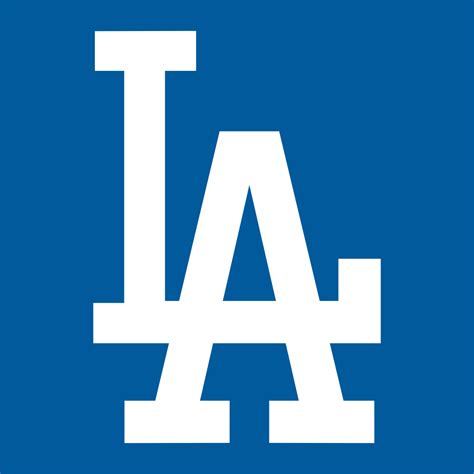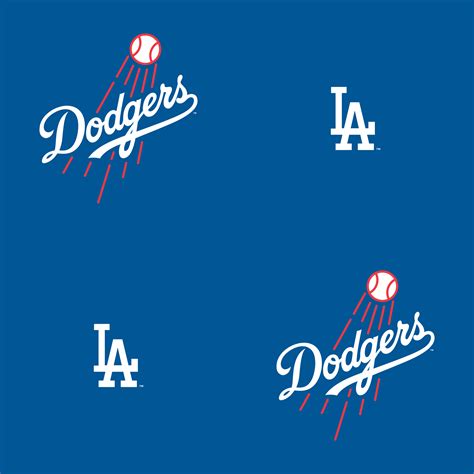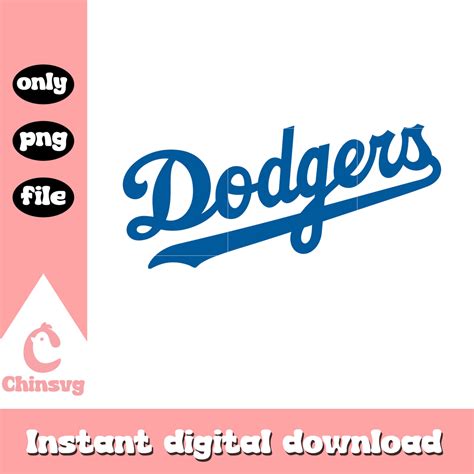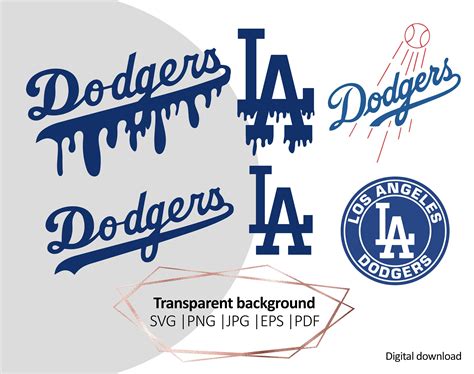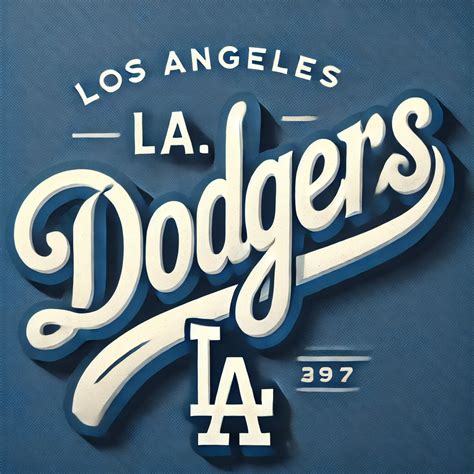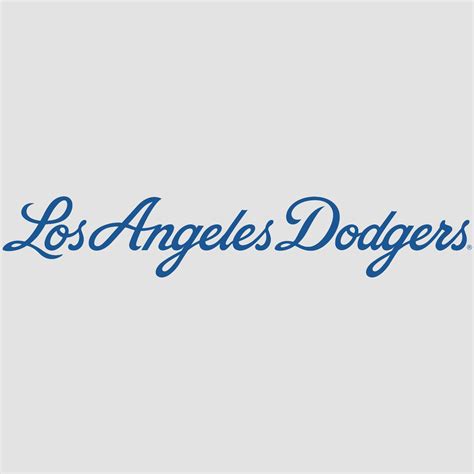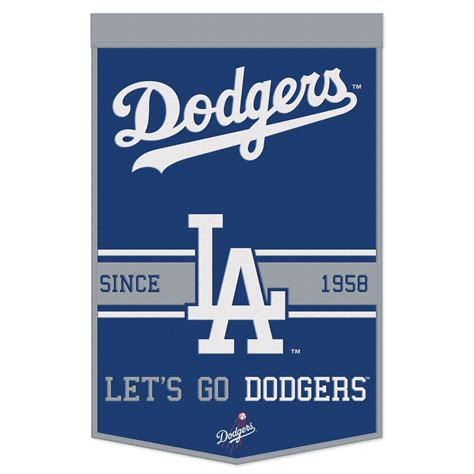
The Los Angeles Dodgers are one of the most iconic and storied franchises in Major League Baseball (MLB). Their rich history, passionate fan base, and distinctive branding have made them a beloved team across the globe. One of the most recognizable elements of the Dodgers' brand is their unique typography, often referred to as the La Dodgers Font. This font has become synonymous with the team's identity, evoking a sense of nostalgia and tradition that resonates with fans and enthusiasts alike.
The Evolution of the La Dodgers Font
The La Dodgers Font has undergone several transformations over the years, reflecting the team's evolution and the changing trends in sports branding. The original font, which featured a classic, serif style, was designed to convey a sense of tradition and stability. Over time, the font has been modernized to keep up with contemporary design standards while retaining its distinctive character.
The current iteration of the La Dodgers Font is a bold, sans-serif typeface that exudes strength and modernity. This font is used extensively in the team's logo, merchandise, and promotional materials, making it an integral part of the Dodgers' visual identity. The font's clean lines and legible design make it highly versatile, allowing it to be used in a variety of contexts while maintaining a consistent brand image.
Key Features of the La Dodgers Font
The La Dodgers Font is characterized by several key features that set it apart from other typographies. These features contribute to its unique aesthetic and make it instantly recognizable to fans and sports enthusiasts. Some of the notable characteristics include:
- Bold and Modern Design: The font's bold, sans-serif design gives it a modern and dynamic appearance, making it stand out in various applications.
- Legibility: Despite its boldness, the font remains highly legible, ensuring that it can be easily read from a distance, whether on a jersey, a billboard, or a digital screen.
- Versatility: The La Dodgers Font is versatile enough to be used in a wide range of contexts, from official team merchandise to digital media and promotional materials.
- Iconic Symbolism: The font's distinctive design elements, such as the unique shape of the letters and the bold strokes, have become iconic symbols of the Dodgers' brand.
The Impact of the La Dodgers Font on Branding
The La Dodgers Font plays a crucial role in the team's branding strategy. Its distinctive design helps to create a strong visual identity that is instantly recognizable to fans and supporters. The font's bold and modern aesthetic aligns with the team's values of strength, resilience, and innovation, making it an essential component of their overall brand image.
In addition to its visual appeal, the La Dodgers Font also serves a practical purpose. Its legibility and versatility make it an ideal choice for a wide range of applications, from jerseys and caps to digital media and promotional materials. This ensures that the Dodgers' brand remains consistent and cohesive across all platforms, reinforcing their identity as a leading franchise in MLB.
Using the La Dodgers Font in Design Projects
For designers and enthusiasts looking to incorporate the La Dodgers Font into their projects, there are several important considerations to keep in mind. While the font is not officially available for public use, there are ways to achieve a similar look and feel in your designs. Here are some tips for using the La Dodgers Font effectively:
- Choose a Similar Font: If you cannot access the official La Dodgers Font, consider using a similar sans-serif font that captures the same bold and modern aesthetic. Some popular alternatives include Helvetica, Arial, and Futura.
- Maintain Consistency: Ensure that the font is used consistently across all elements of your design project. This includes logos, headlines, body text, and any other typographic elements.
- Experiment with Sizes and Weights: The La Dodgers Font is highly versatile and can be used in a variety of sizes and weights. Experiment with different sizes and weights to achieve the desired visual impact.
- Combine with Other Elements: The La Dodgers Font pairs well with other design elements, such as colors, images, and graphics. Use these elements to enhance the overall aesthetic and create a cohesive design.
📝 Note: When using a similar font, make sure to respect the original design and avoid any direct infringement on the Dodgers' trademark.
The Future of the La Dodgers Font
As the Dodgers continue to evolve and adapt to the changing landscape of sports and entertainment, the La Dodgers Font will undoubtedly play a key role in their branding strategy. The font's distinctive design and versatility make it an essential component of the team's visual identity, ensuring that it remains a beloved and recognizable symbol for generations to come.
The future of the La Dodgers Font is bright, with ongoing innovations in design and technology paving the way for new and exciting applications. Whether it's through digital media, augmented reality, or other emerging technologies, the font will continue to be a vital part of the Dodgers' brand, helping to connect fans and supporters with the team's rich history and tradition.